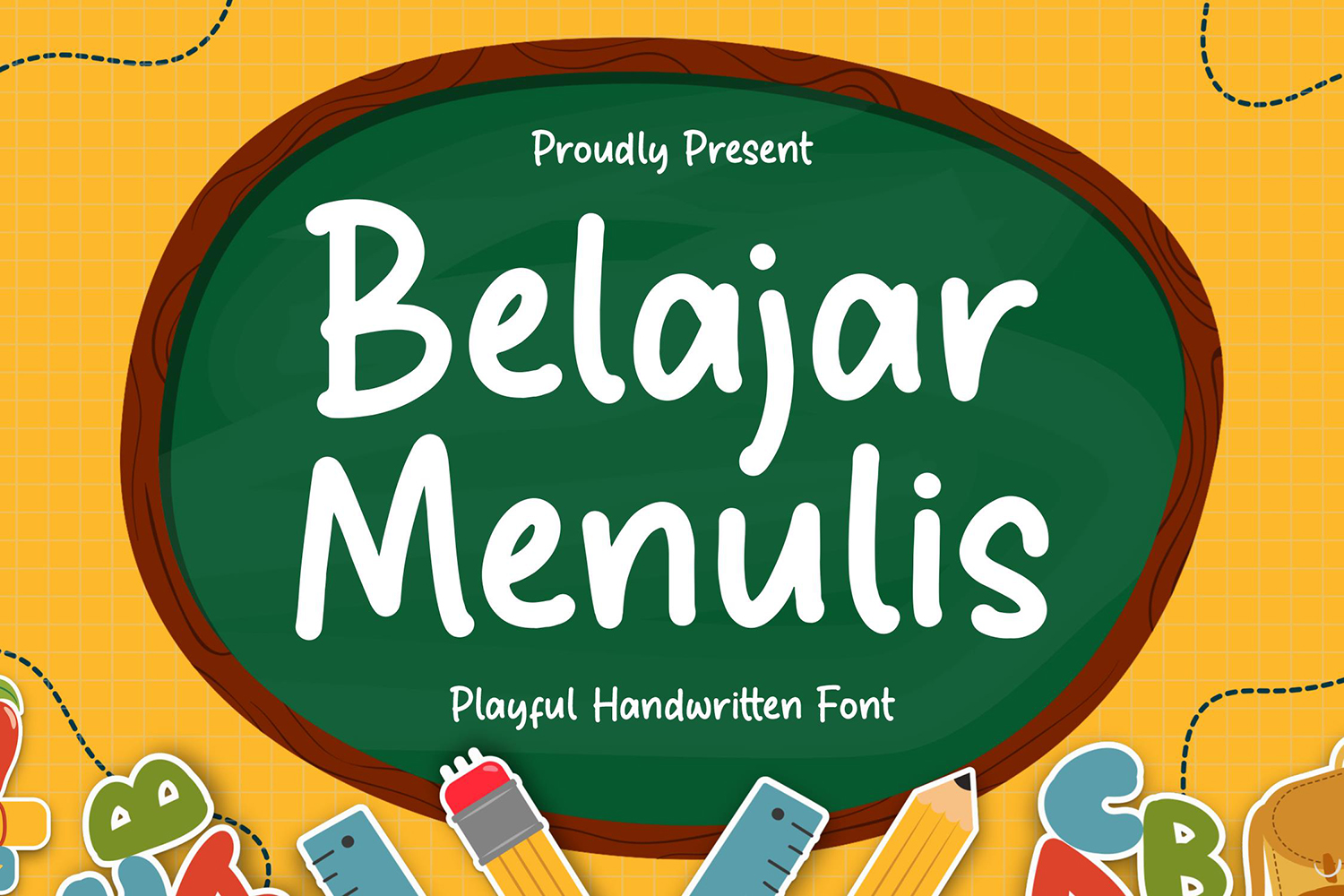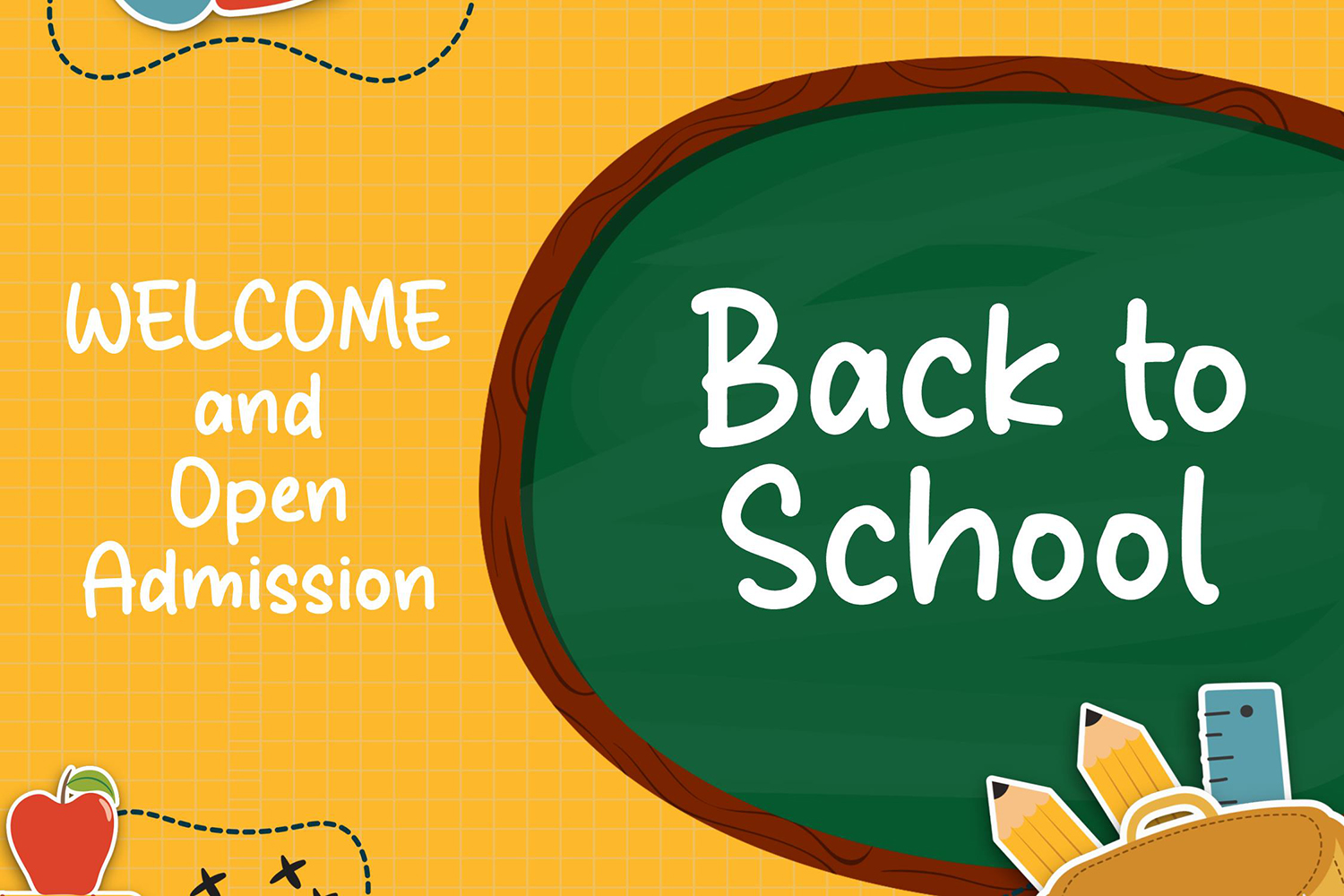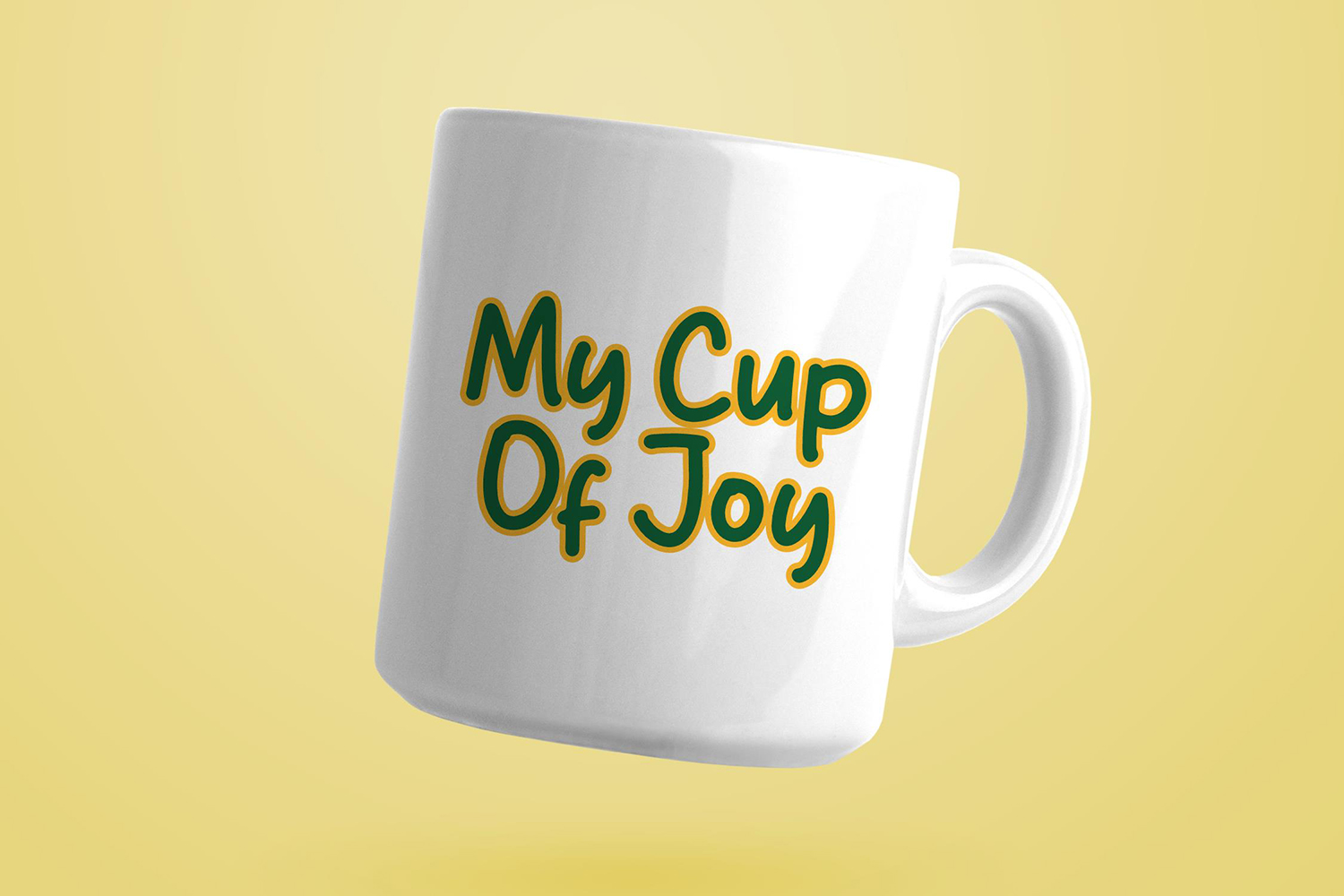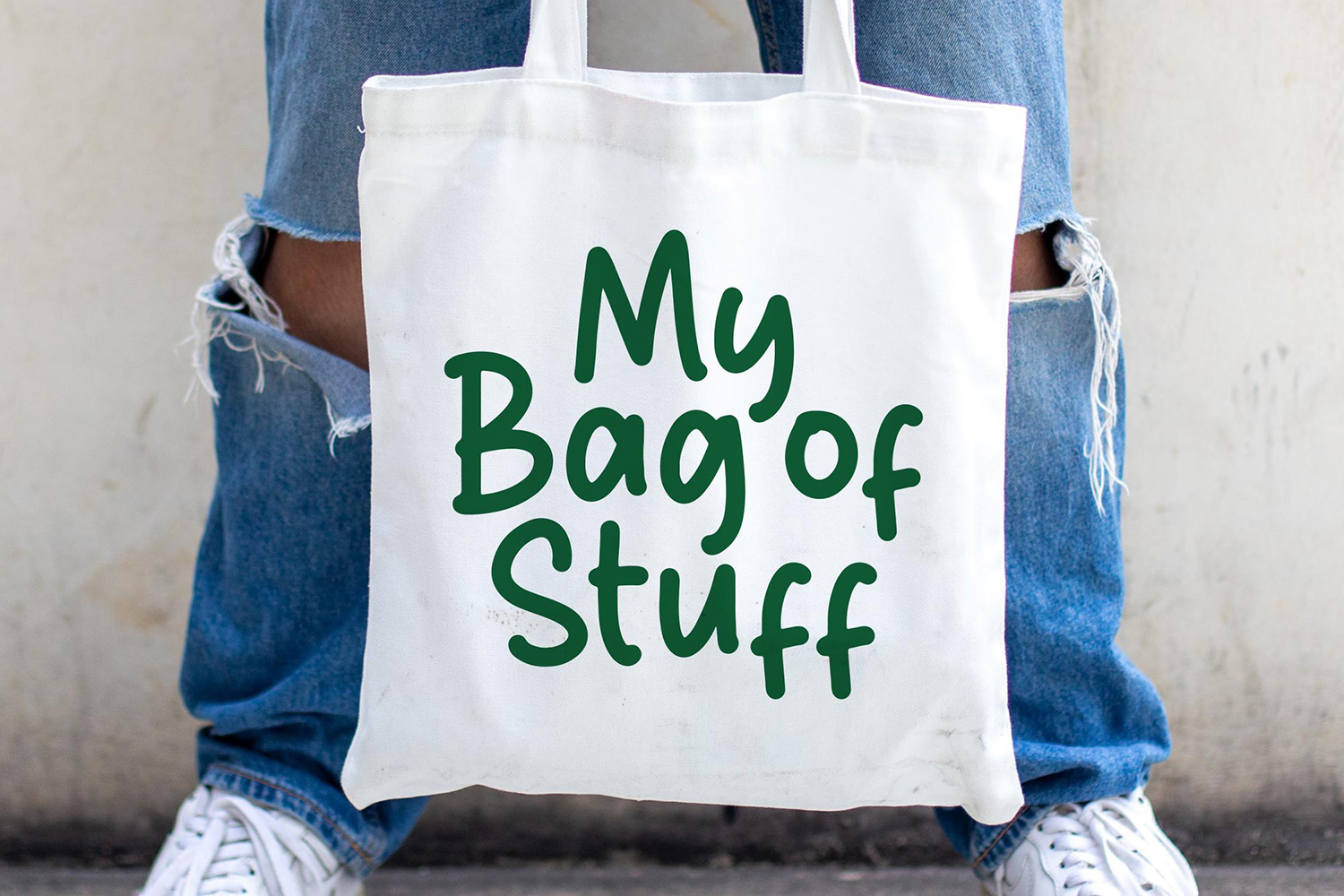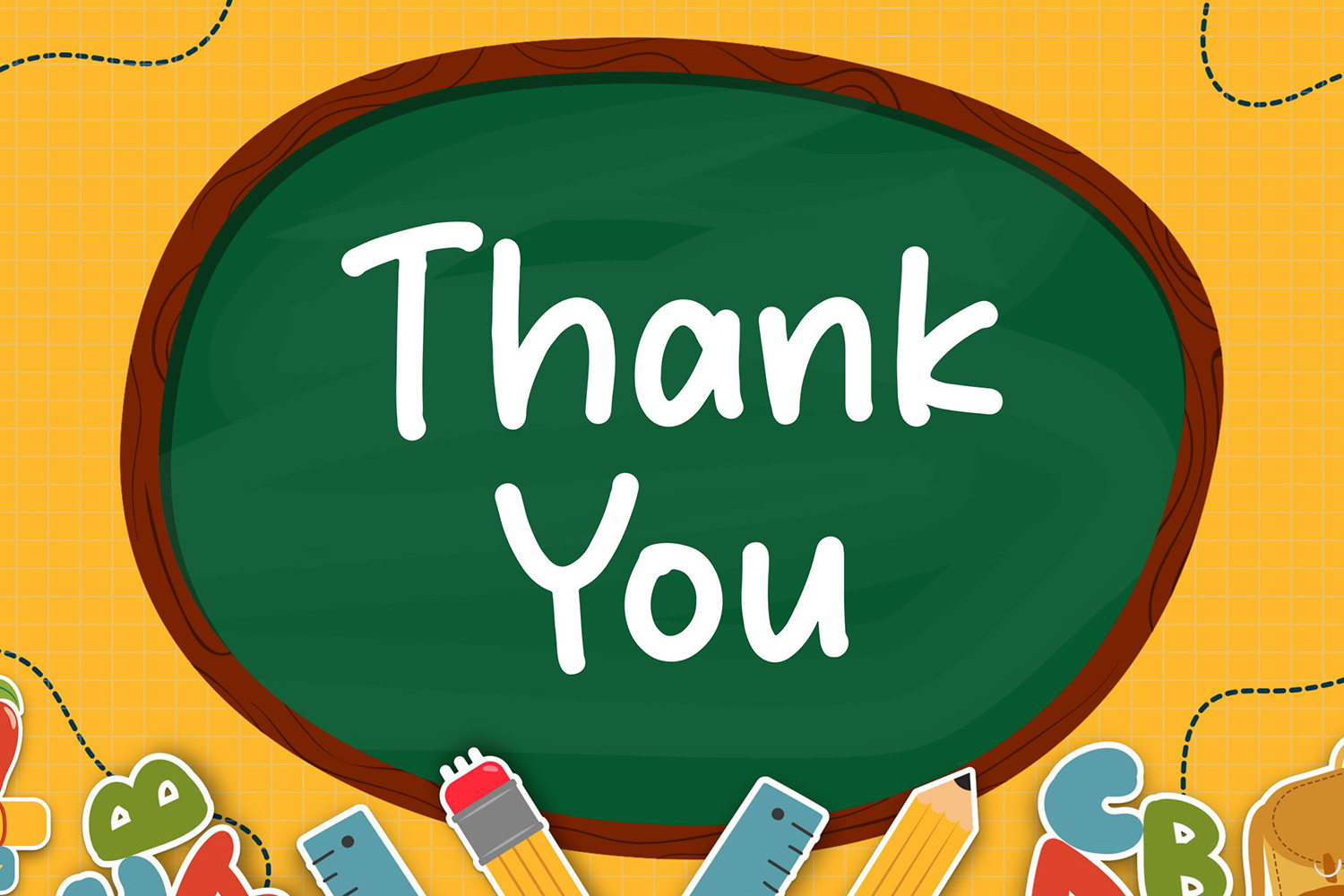
Belajar Menulis Free Font
Belajar Menulis Free Font is a fun and playful handwritten font that brings a touch of personal charm to your designs. Its organic and flowing letterforms are perfect for creating inviting and informal headers, social media posts, and printed materials. Let this free font inspire you to get creative and add a hand-written feel to your projects. Whether you’re working on a scrapbook page, a school project, or just want to add a unique touch to your digital designs, Belajar Menulis Free Font is the font for you!